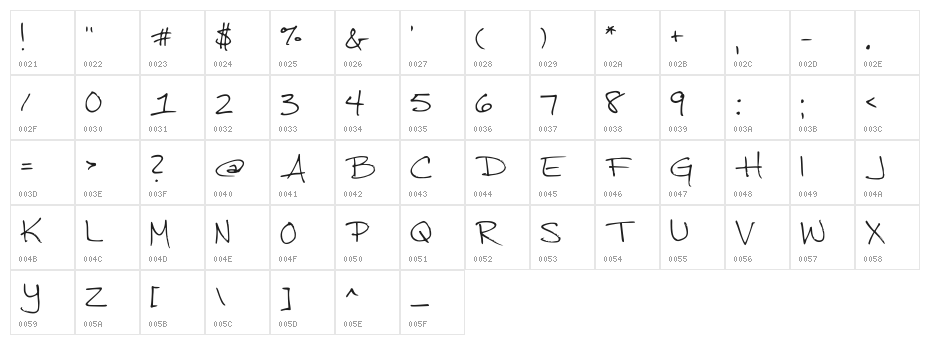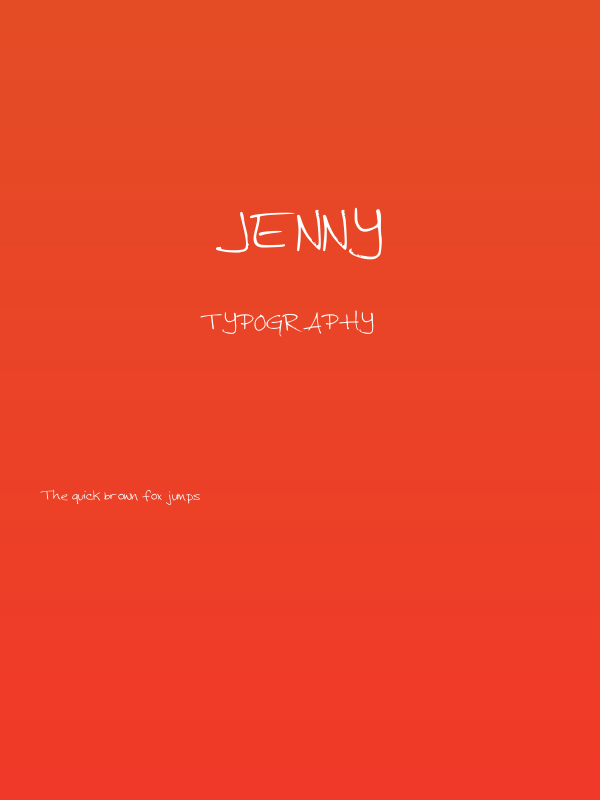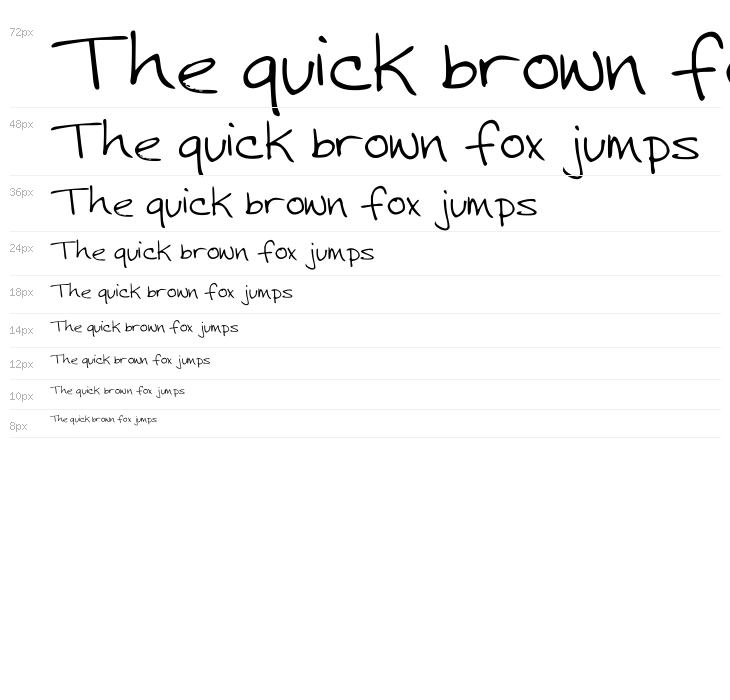
Jenny Font
Jenny Description
This font features a playful and casual handwritten style, characterized by its irregular and slightly whimsical letterforms. The strokes are uneven, giving it a natural and organic feel, reminiscent of a quick sketch or doodle. The uppercase and lowercase letters maintain a consistent style, with a slight slant that adds to its informal charm. Numbers and special characters follow the same aesthetic, ensuring a cohesive look across all text. The font's unique personality makes it stand out, perfect for projects that require a touch of creativity and individuality.
| Proposed Projects | Ideal for greeting cards, personal blogs, children's books, and creative branding. |